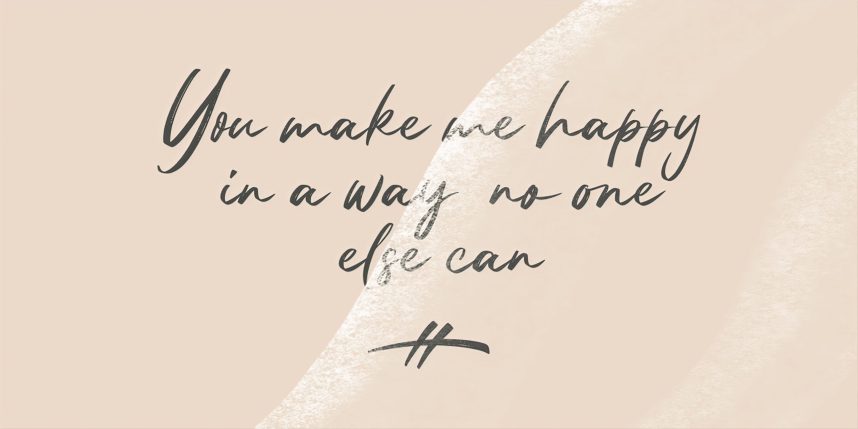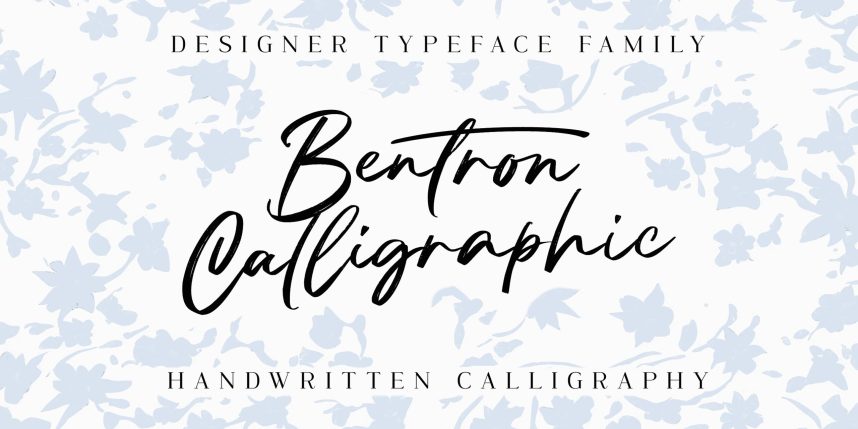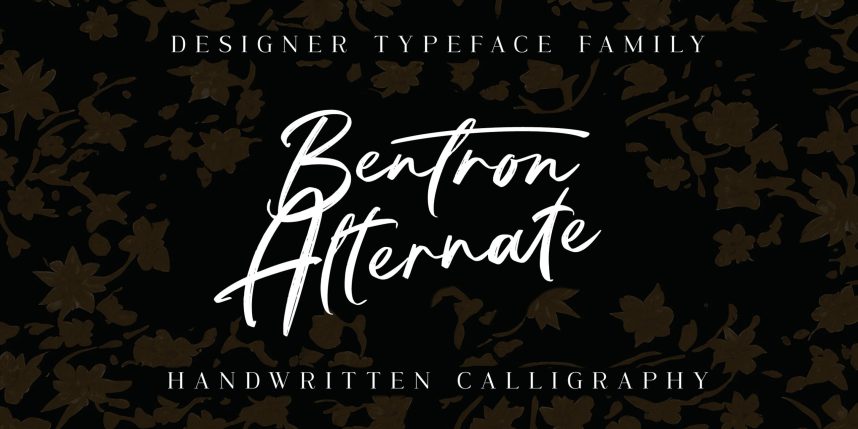
Bentron Font
Bentron Font is a delicate, elegant and flowing handwritten font with a touch of speed and sophistication. Its rapid strokes and dynamic flow give it a signature-like quality that is perfect for adding a personal touch to your projects. Designed by Mans Greback with a focus on the art of calligraphy, Bentron Alternate exudes elegance and grace with its smooth curves and flowing lines. This font is perfect for anything from logos and branding to social media posts and invitations.